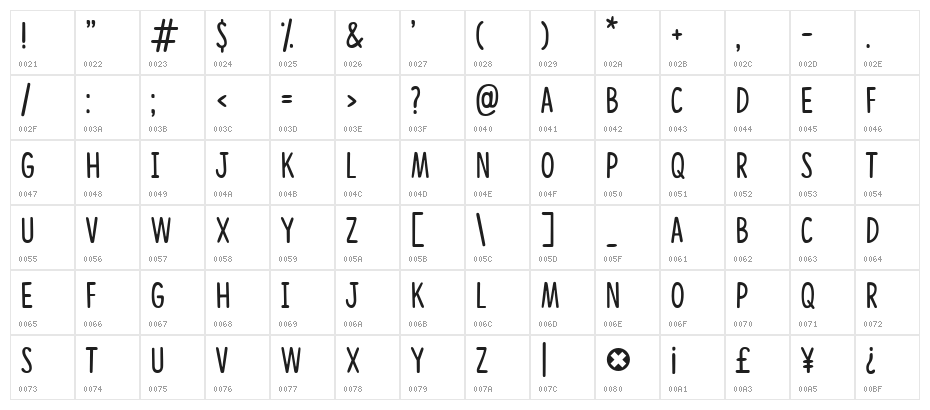
Congratulations DEMO Font
| Anwendungsfall | Headlines, Body text, Logos |
| Vorgeschlagene Projekte | Ideal for branding, web design, advertising, and editorial projects where a modern and approachable look is needed. |